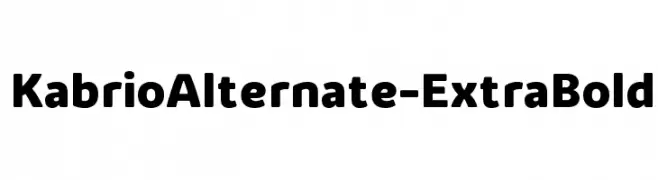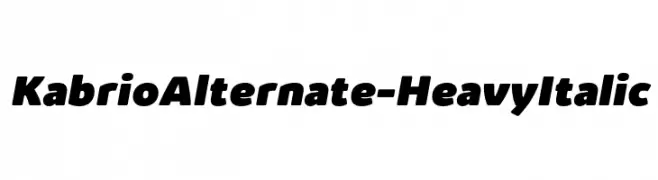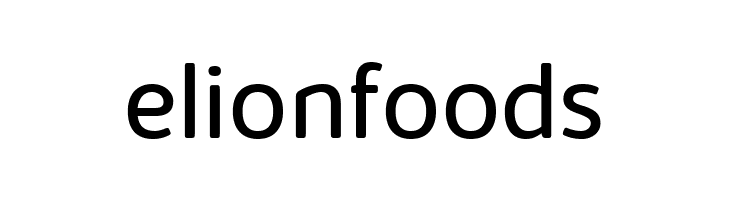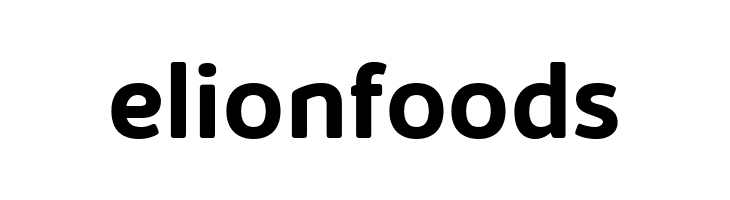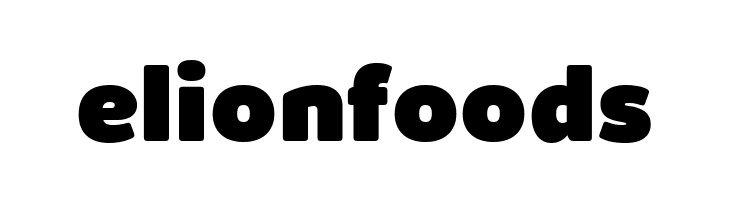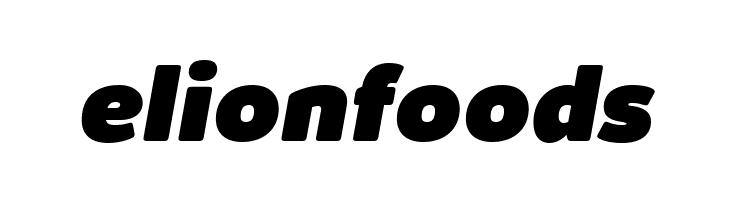
A bold, modern sans-serif font with smooth curves and clean lines.
A bold, italicized font with a modern and dynamic style.
A modern sans-serif font with smooth curves and balanced structure.
A modern, italic font with a sleek and dynamic style.
A bold and robust typeface with smooth, rounded characters.
A bold, italic sans-serif font with a dynamic and modern style.
A modern, extra light sans-serif font with clean lines and uniform stroke width.
A sleek, modern sans-serif font with an extra light weight and italic style.
A bold, heavy font with rounded edges and a modern, playful style.
A bold, heavy italic font with a dynamic and modern style.